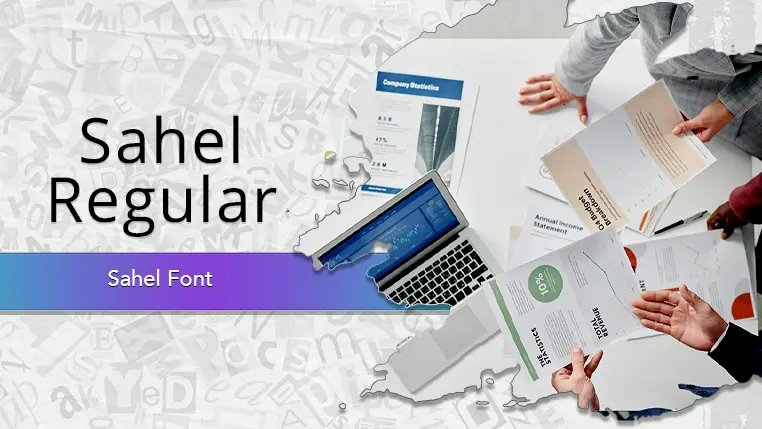
Sahel Font
The Sahel font family may be ideal for you if you enjoy working on an artistic design project. The lively, expressive look of this typeface, which was created by Saber Rastikerdar, makes it ideal for Web and App Interfaces. Sahel is ideal for paragraphs and large blocks of text due to its excellent readability at various sizes. The font can be used for various publishing materials like e-books, reports, and articles where legibility is key. and other light-hearted visual projects.
Regular, Variable, Black, Bold, Light, Semi Bold are the six primary font styles of the Sahel font family. You may build dynamic, visually appealing text layouts with the distinct flair that each style offers. With crisp, readable lines and a relaxed tone.